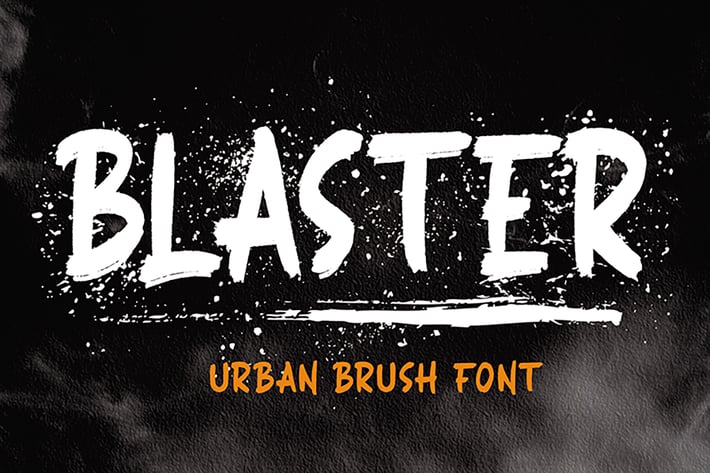
Blaster - Motion Font
Introducing Blaster – a dynamic display brush font crafted for those who want to make a bold statement. Perfect for game titles, esports branding, travel-themed graphics, and high-impact advertising campaigns, Blaster combines the energy of a brushstroke with a contemporary edge. Whether you're working on posters for Black Friday and Cyber Monday sales, creating promotional materials for summer adventures, or designing eye-catching movie posters, Blaster brings a sense of action and excitement to any project.
Elevate your visuals with the striking style of Blaster. This font's bold, sweeping strokes are designed to capture attention and leave a lasting impression. Ideal for discount banners, action-packed film promotions, and captivating travel ads, Blaster's versatility makes it the perfect choice for a wide range of creative applications. Its unique appearance ensures that your message will stand out, drawing viewers in with its dynamic and engaging look.